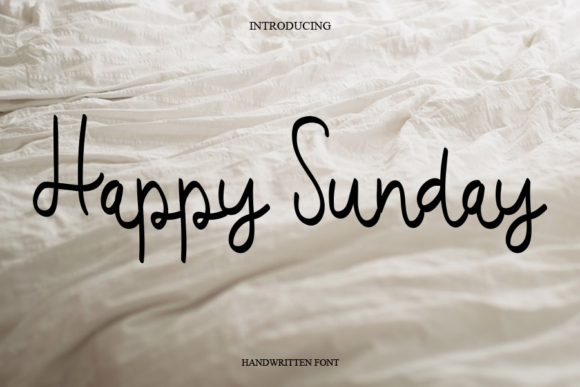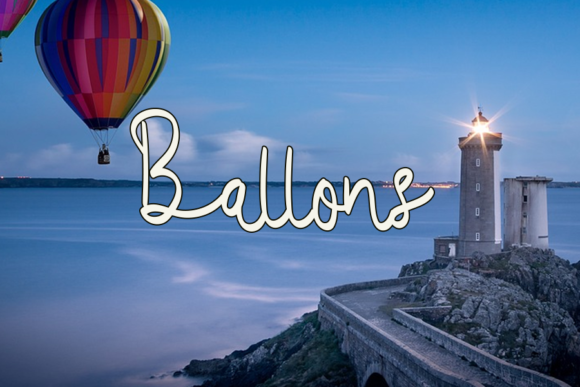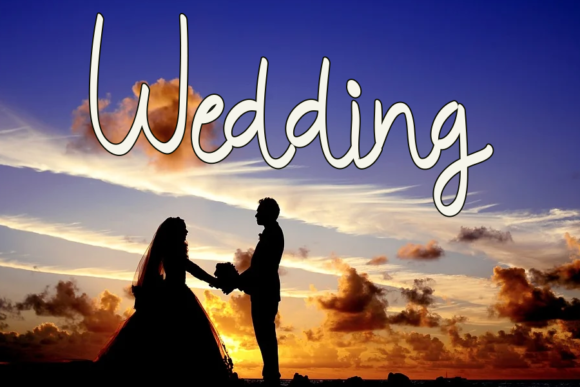
About Happy Sunday Font
Happy Sunday is a sleek and elegant handwritten font that exudes sophistication and style. With its natural-looking letters and sleek design, this font adds a touch of refinement and elegance to any creative project that requires a handwritten touch.
The flowing and well-balanced characters of Happy Sunday give it a graceful and sophisticated appearance. Each letter is carefully crafted to maintain a natural and authentic handwritten look, making it ideal for projects where a personal and artistic touch is desired.
Whether you’re designing wedding invitations, greeting cards, logos, branding materials, or any other creative project, Happy Sunday brings a touch of elegance and charm. Its sleek style adds a sense of professionalism and class, making it suitable for both formal and informal designs.
The versatility of Happy Sunday allows it to be used in various design contexts. Its clean and legible letterforms ensure readability, while the elegant and flowing strokes add a touch of personality. Whether you’re creating digital designs or printing materials, this font delivers a polished and sophisticated aesthetic.
Happy Sunday is a font that can elevate the visual appeal of your designs. Its sleek and elegant style makes it a great choice for projects where a refined and artistic touch is desired. From wedding stationery to branding materials, this font adds a touch of sophistication and professionalism.
In summary, Happy Sunday is a sleek and elegant handwritten font that adds sophistication and style to any creative project. Its natural-looking letters and sleek design make it suitable for a wide range of applications, from wedding invitations to branding materials. With its refined aesthetic, Happy Sunday brings an element of elegance and charm to your designs.